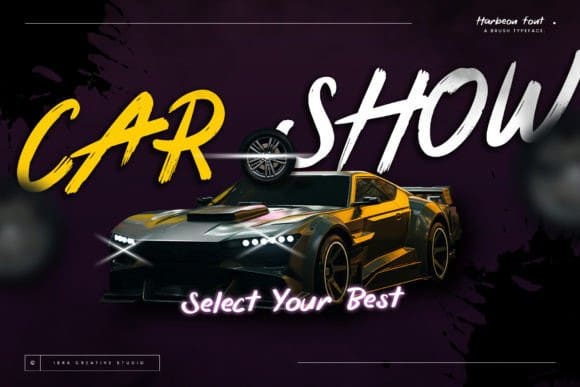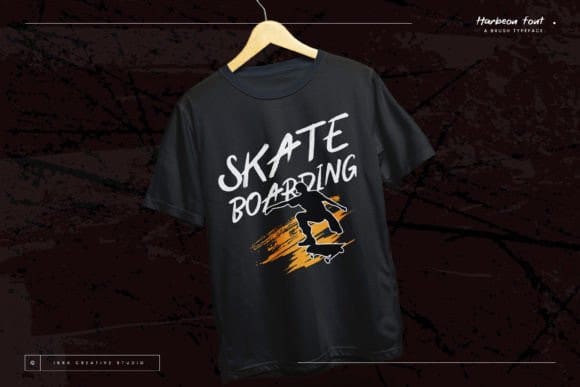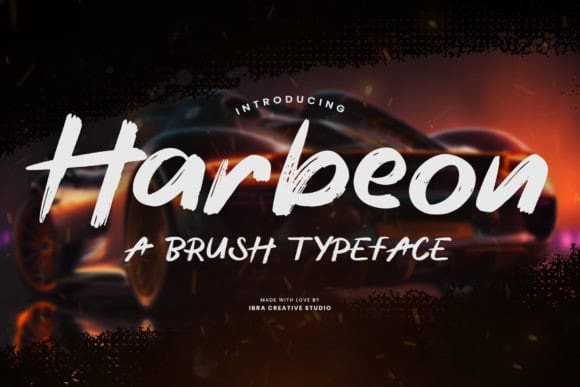
Harbeon Brush Font
Harbeon Brush Font, a brush typeface, embodies the essence of expressive and dynamic design with its bold and textured strokes. Crafted with meticulous attention to detail, each character in Harbeon reflects the authenticity of hand-painted lettering, infusing a sense of artistic flair into any project. The brush strokes evoke a lively and energetic feel, making it an ideal choice for projects that demand a touch of spontaneity and creativity.